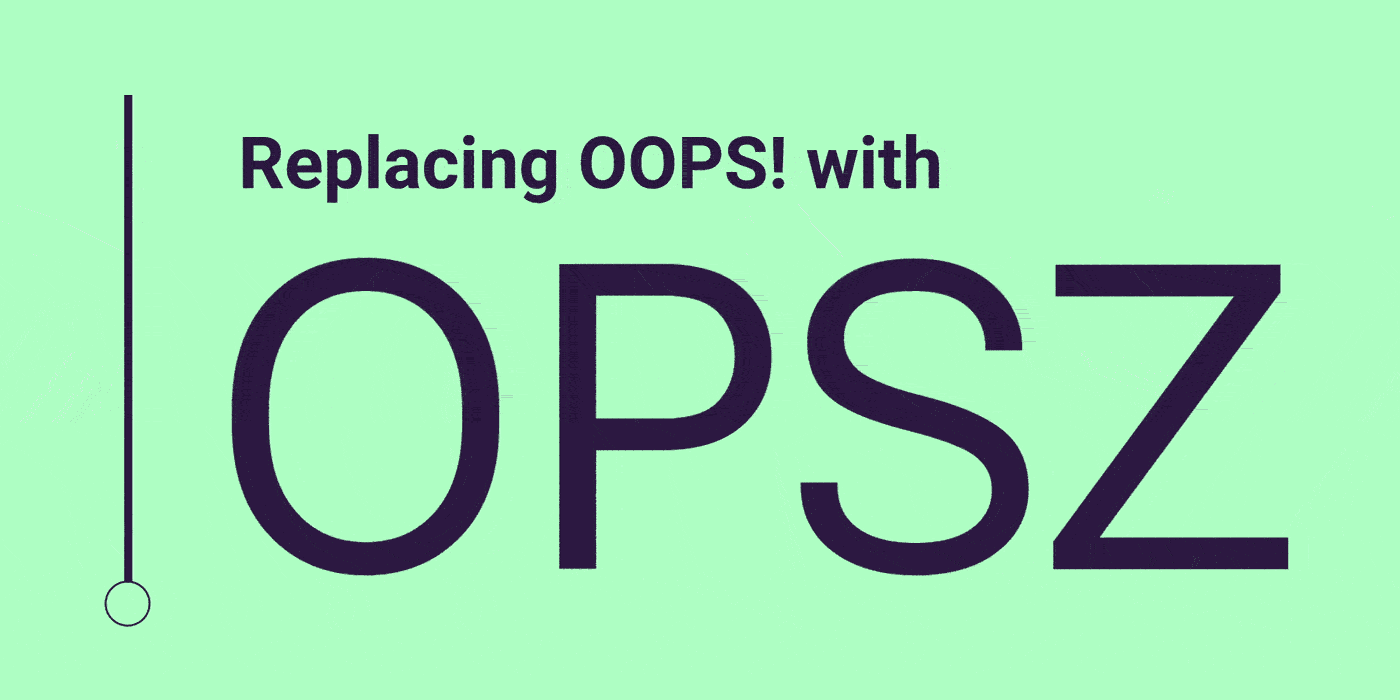
Not long after variable fonts were announced in September 2016, Google Fonts and Font Bureau released two open source fonts designed by David Berlow. Amstelvar and Decovar each demonstrated what could be done with the new technology, with controls that went far beyond the typical handful of typographic options like weight and width. These projects proved to be lively field tests for how dynamic these new kinds of fonts could really be.
Berlow’s early discussions with the team at Google Fonts identified a number of possibilities for the new font technology, neatly summarized by Google’s Dave Crossland as “express” or “finesse”. That is, variable fonts could be used to both showcase creativity and refine the appearance of text. The first two faces focused on these directions, with Decovar showing how much a variable font could express, and Amstelvar showing how many typographic details could be altered to finesse a text.
Those two demo projects—Amstelvar, in particular—convinced Google to enlist Font Bureau once again. For the last few years, David Berlow has been developing Roboto Flex, a variable version of Google’s popular Roboto family. This single variable font needed not only to express all of Roboto’s widths and weights, but also to make sure they could look consistent and readable at different sizes and in different display environments.
Berlow describes the dilemma of working with the existing Roboto fonts as “futzing with fonts” and “cascading style slop”. Those are colorful ways of describing the need to use different font weights over a range of font sizes to make smaller text look like it’s about the same weight as much larger text. While this can be an effective trick, it is difficult to automate when exactly one weight should be replaced by another, especially when reflowing or resizing a layout.
With so many factors at play, a variable font that can adapt to changing conditions would be the best way to ensure consistent luminance and readability. Instead of working with numerous fonts of slightly different styles and trying to anticipate when to use each style, a well-organized and well-drawn variable font could efficiently change its appearance to work well in any number of user contexts.
Font Bureau’s earlier work on Amstelvar provided the architecture for a solution. Like Amstelvar, Roboto Flex breaks down typographic concepts of “grade” and “optical size” into more specific parameters that can be adjusted individually. For instance, the weight of vertical strokes can be changed independently of the weight of horizontal strokes. The x-height or cap height can be altered separately. The width of the internal white spaces can be changed without changing stroke weights. These are all factors that a type designer might naturally factor into the design of different grades or optical sizes, but picking them apart into separate axes of a single variable font allows better control over how they interact. That makes it easier to measure and automatically refine the overall appearance. Create more variable fonts with the same axes, and things get interesting: An element set in Roboto Flex can change to a different typeface and preserve the overall luminance of the text on screen, making sure things stay just as readable no matter which font is used.
Drawing these parametric axes is a challenge for any type designer. It requires extreme changes to each aspect of the typeface—just the width of the vertical stems, just the internal counter space, and so on—and then determining how to apply those extreme qualities across the whole alphabet (even if it makes many of the letters look strange). Parametric axes are parts of a formula and not necessarily attractive designs on their own, so while you're drawing them, you need to think about the systems behind the characters you’re working on.
It's very easy to lose confidence, so very few people even want to embark on it, because you have to make funny looking fonts. Except that they're not so funny looking! If you go back and look at history, there is always a font somewhere where somebody just did it. They took all the weight off or added weight, or just totally just crushed it. And you can see what you have to do to make it look right.—David Berlow
Berlow has designed the interplay of axes and drawn their various poles for the basic character set, while organizing teams of contractors to follow his lead as they design for other languages and writing systems. Altogether, they’re making Roboto Flex and the next generation of Google’s own variable fonts into compact, flexible elements of a design system.
Getting a single font file to look right—no matter what size it is and no matter what is happening on screen behind it—might sound impossible. But that’s the opportunity of Font Bureau’s parametric approach to variable fonts. They enable a font to interact with the properties of its context: A designer can choose a typeface for its expressive qualities, while letting the overall system finesse the results.